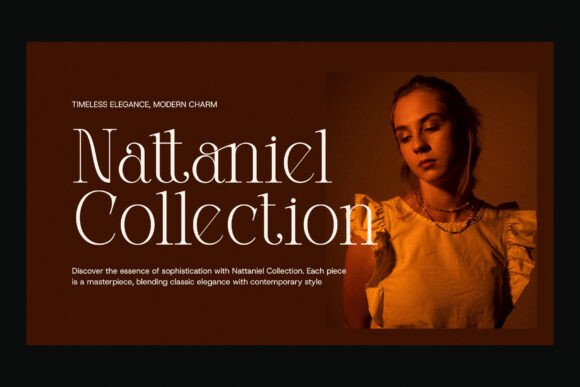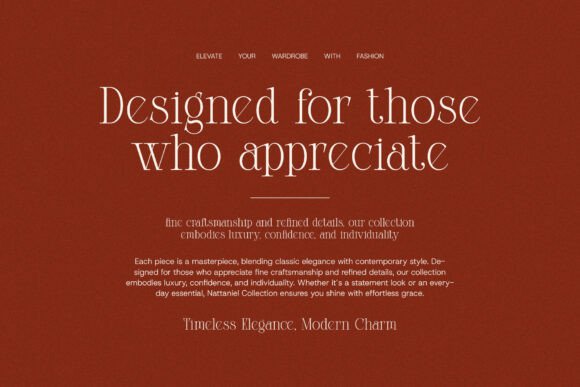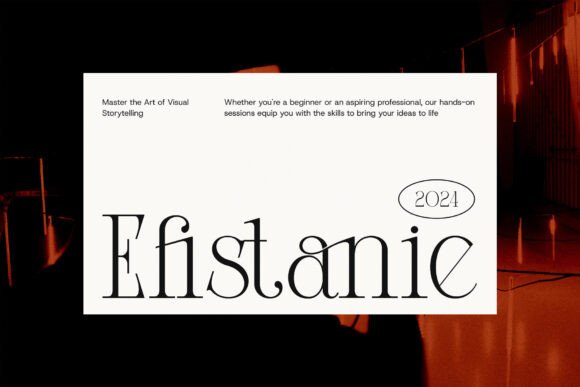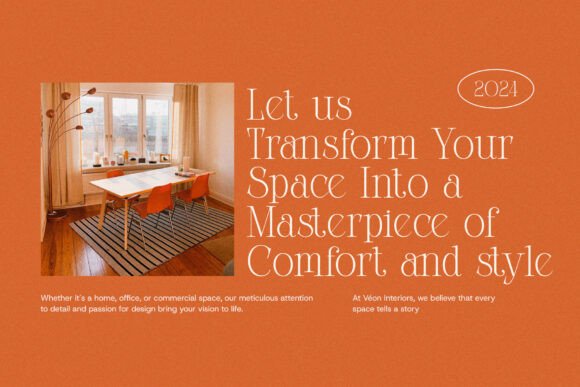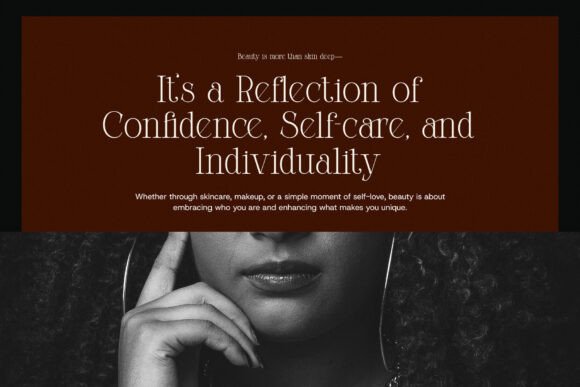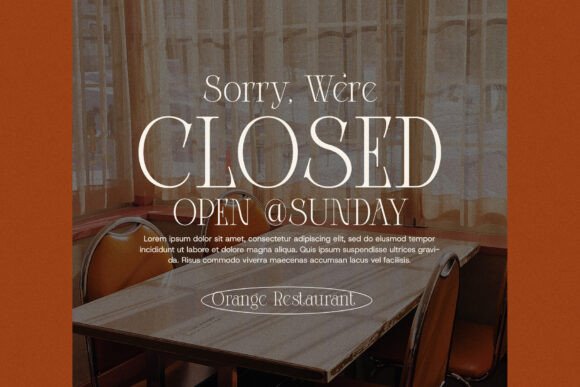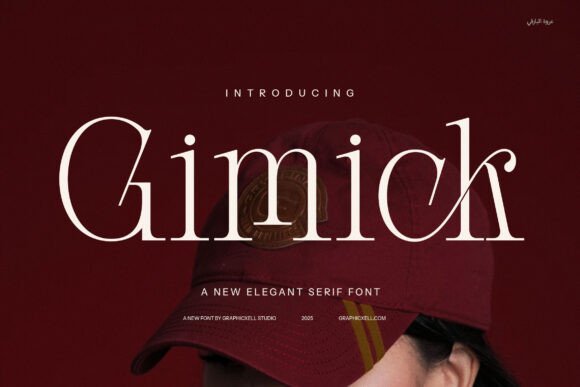
Introducing Gimick Ligature Serif Font: Elevate Your Designs with Elegance and Creativity
In the world of typography, a font can make all the difference in the success of a design project. For those who appreciate refined style and are looking to add a touch of class to their work, Gimick Ligature Serif Font is an exceptional choice. This modern and sophisticated serif typeface seamlessly blends elegance with creativity, making it perfect for designers and crafters who want to create stunning visual experiences.
A Unique and Distinctive Personality
What sets Gimick Ligature Serif Font apart is its unique ligatures and thoughtfully crafted alternates. These distinctive features provide a distinct personality that stands out in any design, making it ideal for creating unforgettable logos, impactful branding, and eye-catching advertisements. The smooth, flowing ligatures and graceful serifs elevate your work, giving it a refined and polished look that speaks to your audience with sophistication.
One of the key benefits of Gimick Ligature Serif Font is its versatility. This font shines in both print and digital formats, making it perfect for a wide range of uses, from websites and magazines to high-end product packaging. Whether you’re designing for boutiques, restaurants, or luxury brands, Gimick Ligature Serif Font adds a touch of elegance and refinement that elevates your work.
Gimick Ligature Serif Font is suitable for various design projects, including:
• Logos and Branding: Create a lasting impression with a unique and memorable logo that reflects your brand’s personality.
• Websites and Digital Media: Enhance your online presence with a sophisticated and elegant font that engages your audience.
• Magazines and Publications: Add a touch of class to your editorial designs with Gimick’s smooth and flowing ligatures.
• Advertisements and Marketing Materials: Stand out in a crowded market with a font that exudes sophistication and refinement.
• Product Packaging: Elevate your product design with a luxurious and high-end font that reflects your brand’s values.
The Power of Ligatures
One of the standout features of Gimick Ligature Serif Font is its charming ligatures. These special character combinations create a harmonious flow of letters, ensuring that each design feels cohesive and visually appealing. Ligatures add an extra layer of sophistication to your work, making it perfect for designs that require a high level of elegance and refinement.
Why Choose Gimick Ligature Serif Font?
With Gimick Ligature Serif Font, you can:
• Elevate your designs: Add a touch of class and sophistication to your work.
• Stand out from the crowd: Gimick’s unique ligatures and alternates ensure your designs are memorable and distinctive.
• Enhance your brand: Create a lasting impression with a font that reflects your brand’s personality and values.
• Increase versatility: Use Gimick Ligature Serif Font across various design projects, from print to digital.
In conclusion, Gimick Ligature Serif Font is an exceptional choice for designers and crafters who want to add a touch of elegance and refinement to their work. With its unique ligatures, sophisticated serifs, and versatility in design, this font is perfect for a wide range of projects. Whether you’re creating logos, branding, or marketing materials, Gimick Ligature Serif Font is sure to elevate your designs and leave a lasting impression on your audience.